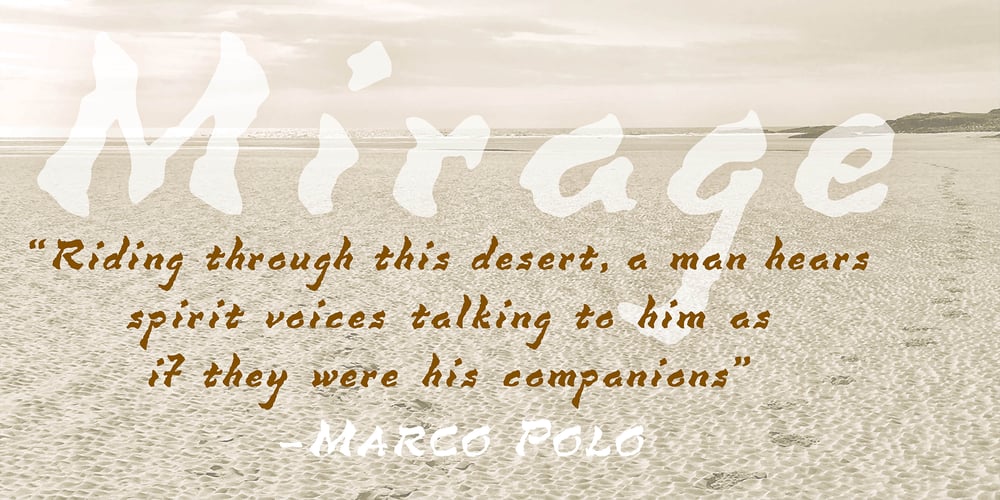
Mirage Font Family was designed by Chris Costello and published by Chris Costello. Mirage contains 1 styles and family package options. I designed Mirage using ink and a calligraphy brush to evoke the writing styles of ancient and exotic civilizations. After completing the project, it was filed and forgotten. About 15 years later, I was sifting through some of my old art files and found a “photostat” of the entire character set… a truly a magnificent archeological discovery. Then I thought, hey, maybe it’s day has come. Why not share it with the world?… a completely digitized version for the new millennium. This unique font is a versatile, calligraphic option for travel, history, and greeting card themes. What other uses can you imagine?